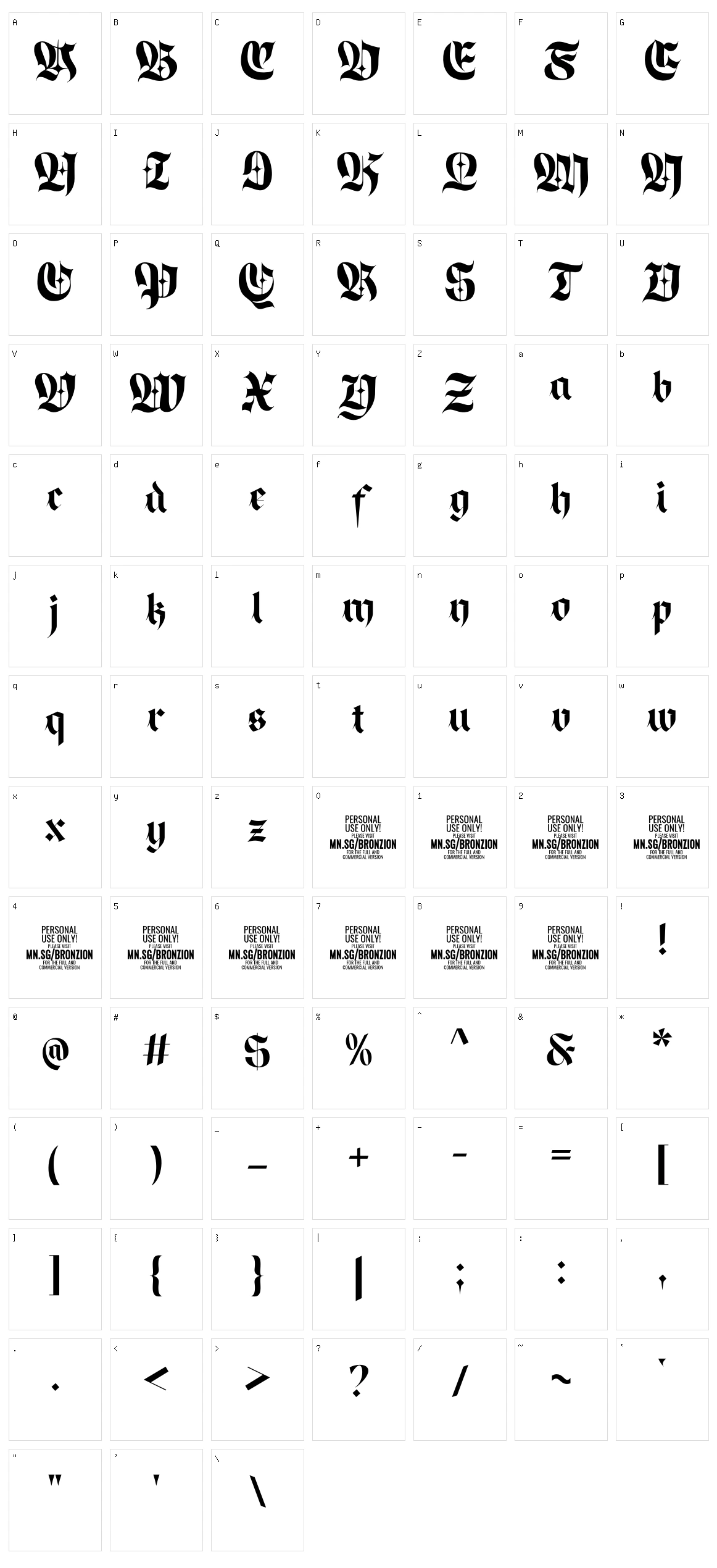
Bronzion Black
Designed by: Mans Greback
Category: Medieval & Gothic
Bronzion Black is a heavy blackletter typeface, offering large capitals that are meticulously hand-painted, providing a raw and authentic touch.
With its dark ages inspiration, Bronzion Black is a captivating blend of calligraphy and heavy metal undertones. The typeface captures the ornamental beauty of middle ages manuscripts while catering to modern design needs. Its heavy, intricate design makes it perfect for projects that require a touch of medieval grandeur.
Use characters 🌲🌳🎠🐂🐅🐆🐈🐉🐎🐕🐦🐯🐲🐺👑👸🗡🤴🦁🦅🦇🦌🦎🦓🦖 to create heraldry-like logos and symbols.
Example: Magic🐉Empire
Bronzion Black is built with advanced OpenType functionality and has a guaranteed top-notch quality, containing stylistic and contextual alternates, ligatures, and more features; all to give you full control and customizability. It has extensive lingual support, covering all Latin-based languages, and includes all the characters and symbols you'll ever need.
Behind this elegant creation is Mans Greback. Known for his ability to infuse classical elements into modern designs, Greback has once again proven his versatility with Bronzion. His portfolio is an ever-growing collection of typographic brilliance, each typeface a unique story in itself.